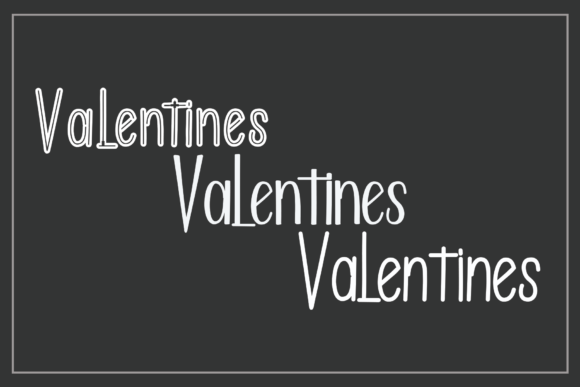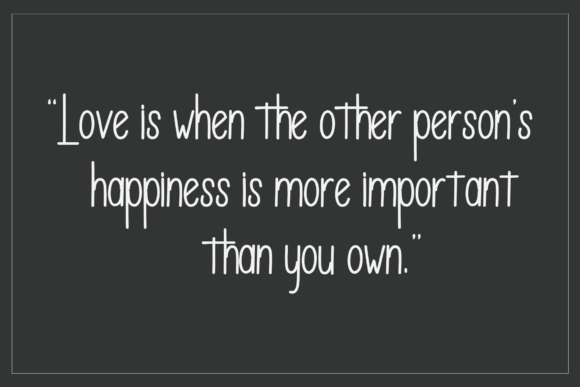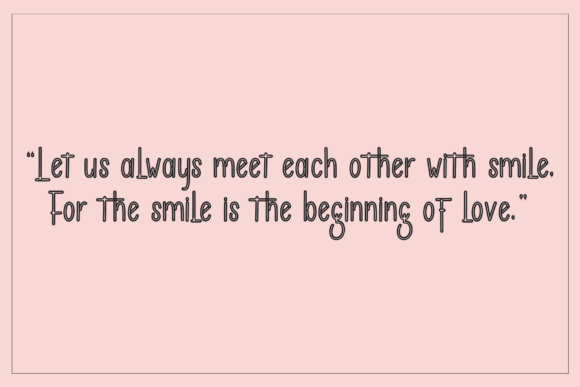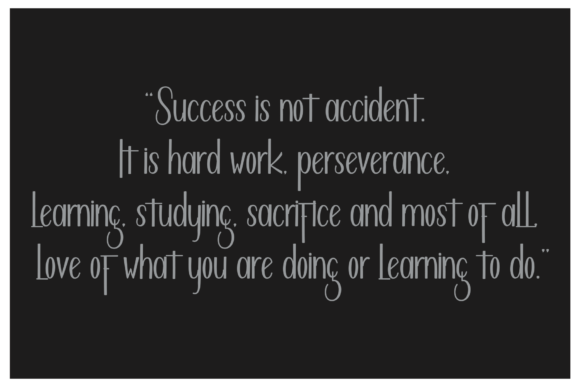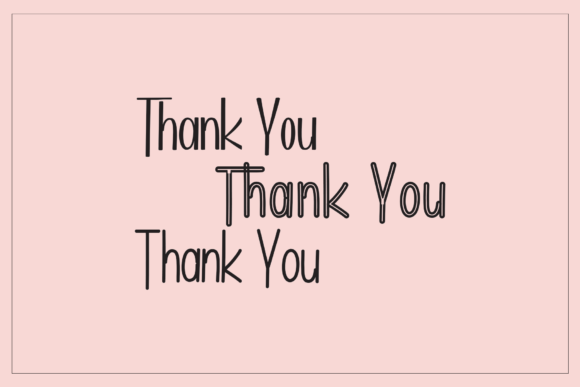
Introducing Baylee Family Font: Elevate Your Designs with a Striking Sans Serif
In the world of typography, a font can make or break a design. The right font can elevate your project, making it stand out from the crowd, while a poorly chosen one can leave it languishing in obscurity. For designers and crafters looking to make a statement, the Baylee Family Font is an exceptional choice. This striking sans serif family is designed to turn heads and make any design pop.
What is the Baylee Family Font?
The Baylee Family Font is a versatile and stylish sans serif font family that offers a range of amazing styles to suit various design needs. Its clean and modern lines make it perfect for a wide array of applications, from logos and slogans to advertising messages, wedding invitations, t-shirts, letterheads, signage, labels, news, posters, badges, and much more.
Key Features of the Baylee Family Font
- Striking Sans Serif Design: The Baylee font boasts a contemporary sans serif design that is both elegant and eye-catching.
- Variety of Styles: With multiple styles to choose from, designers can select the perfect variation to match their project’s tone and aesthetic.
- High Versatility: Its wide range of applications makes it an ideal choice for various design projects, from digital to print.
- Easy to Read: Despite its stylish appearance, the Baylee font maintains excellent readability, ensuring your message is conveyed clearly.
Applications of the Baylee Family Font
The Baylee Family Font’s versatility is one of its most compelling features. Here are some of the many ways you can use this fantastic font:
- Logos and Branding: Create a lasting impression with a unique and memorable logo.
- Wedding Invitations and Stationery: Add a touch of elegance and sophistication to your wedding or event invitations.
- T-Shirts and Merchandise: Design eye-catching apparel and merchandise that stands out.
- Advertising and Marketing: Use the Baylee font to create compelling ads and promotional materials.
- Signage and Displays: Make your signage and displays more engaging and noticeable.
Why Choose the Baylee Family Font?
With so many fonts available, why should designers and crafters choose the Baylee Family Font? Here are a few reasons:
- Uniqueness: The Baylee font offers a fresh and distinctive look that can help your designs stand out.
- Flexibility: Its range of styles and high versatility make it suitable for a vast array of projects.
- Quality: As a professionally designed font, Baylee ensures high-quality typography that will enhance your designs.
Tips for Using the Baylee Family Font
To get the most out of the Baylee Family Font, consider the following tips:
- Pair with Complementary Fonts: For maximum impact, pair the Baylee font with complementary fonts that enhance its features.
- Experiment with Styles: Don’t be afraid to try out different styles within the Baylee family to find the perfect fit for your project.
- Consider Your Audience: Choose a style that resonates with your target audience and reflects the tone of your message.
- Play with Sizes and Colors: Experiment with various sizes and colors to create visual hierarchy and emphasis in your designs.
The Baylee Family Font is a powerful tool for designers and crafters looking to elevate their projects with a striking sans serif font. Its range of styles, versatility, and high-quality design make it an excellent choice for a wide range of applications. Whether you’re creating logos, wedding invitations, t-shirts, or signage, the Baylee Family Font is sure to make your designs stand out. So why settle for ordinary when you can make your designs extraordinary with the Baylee Family Font?